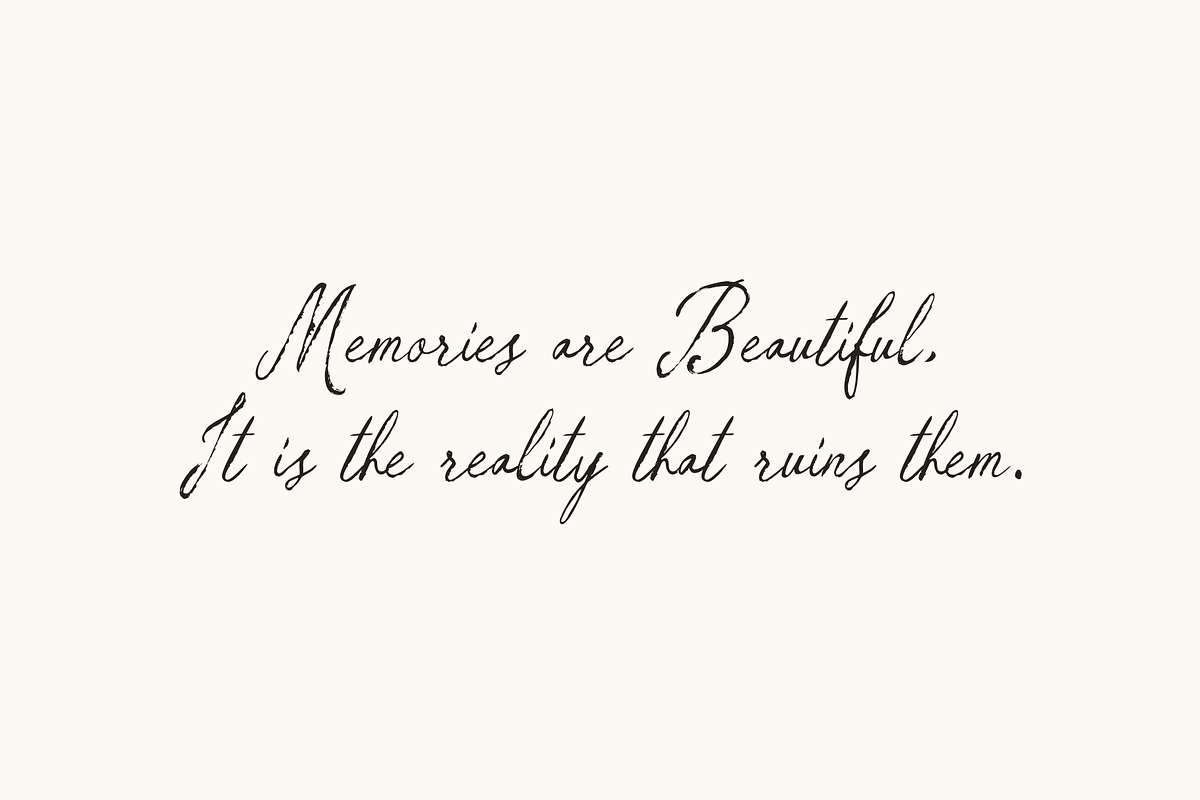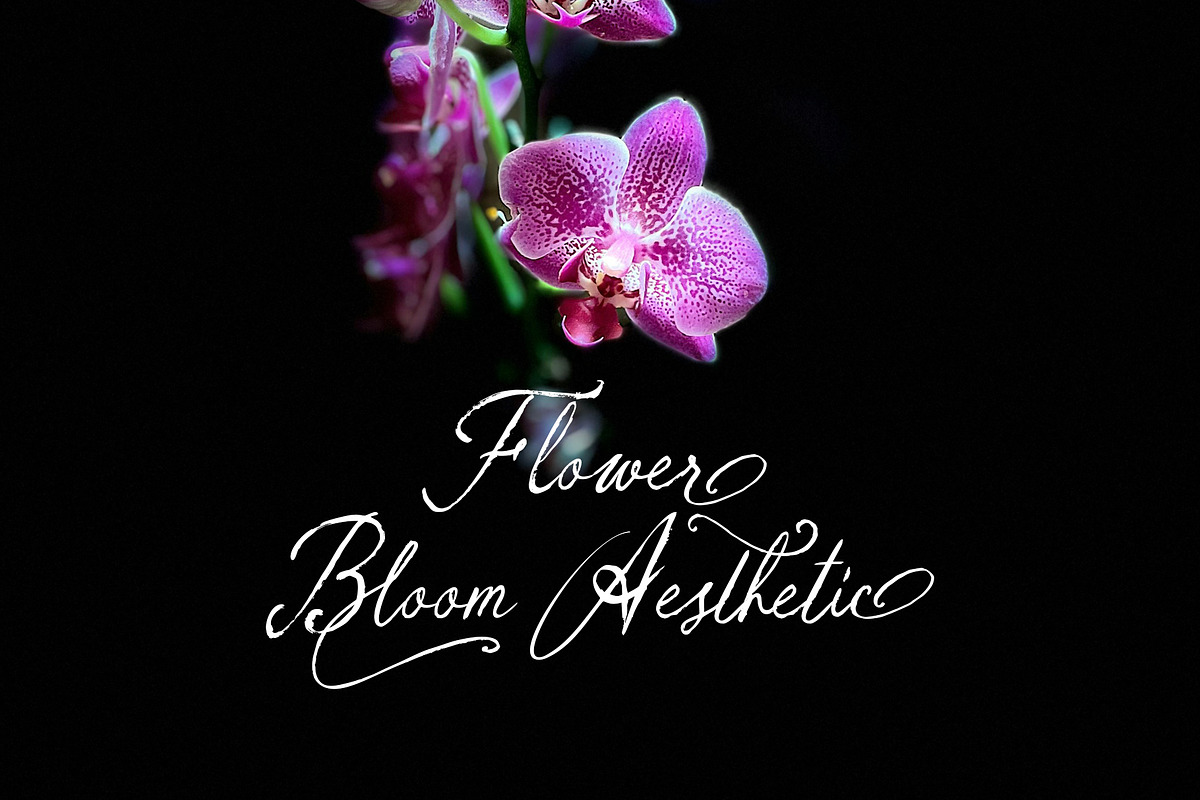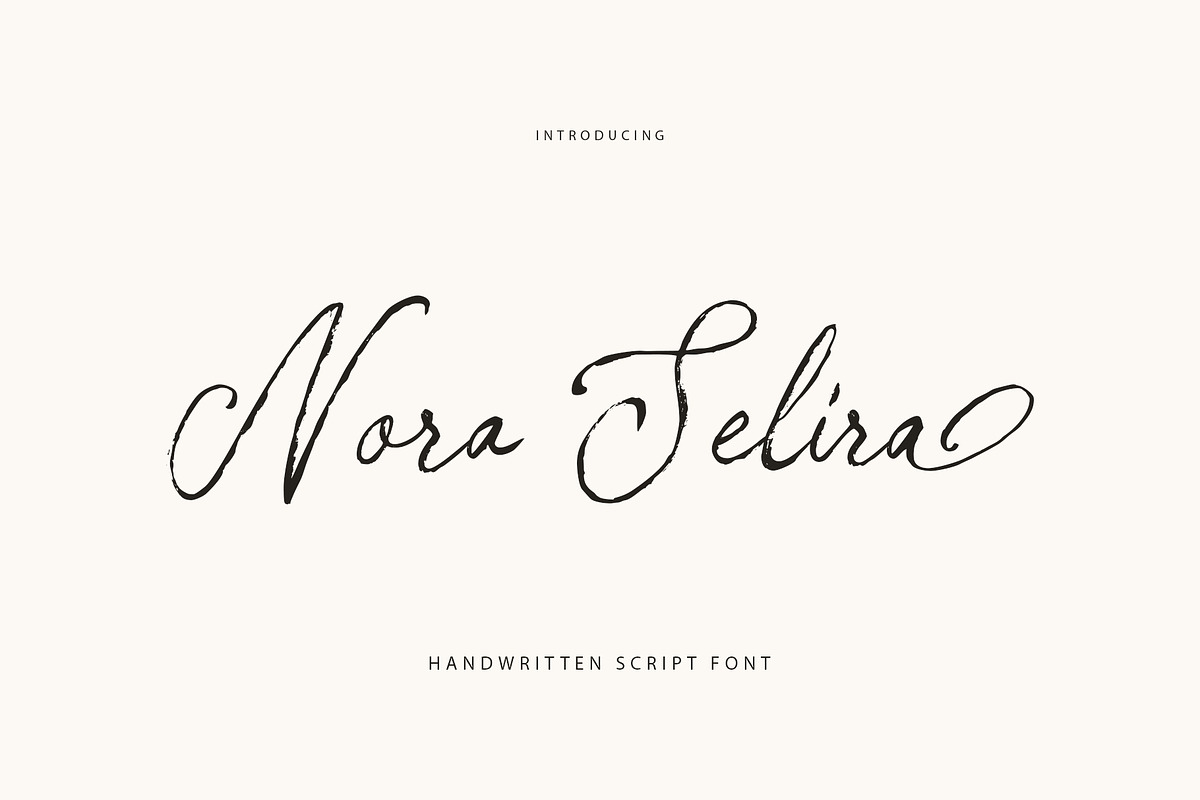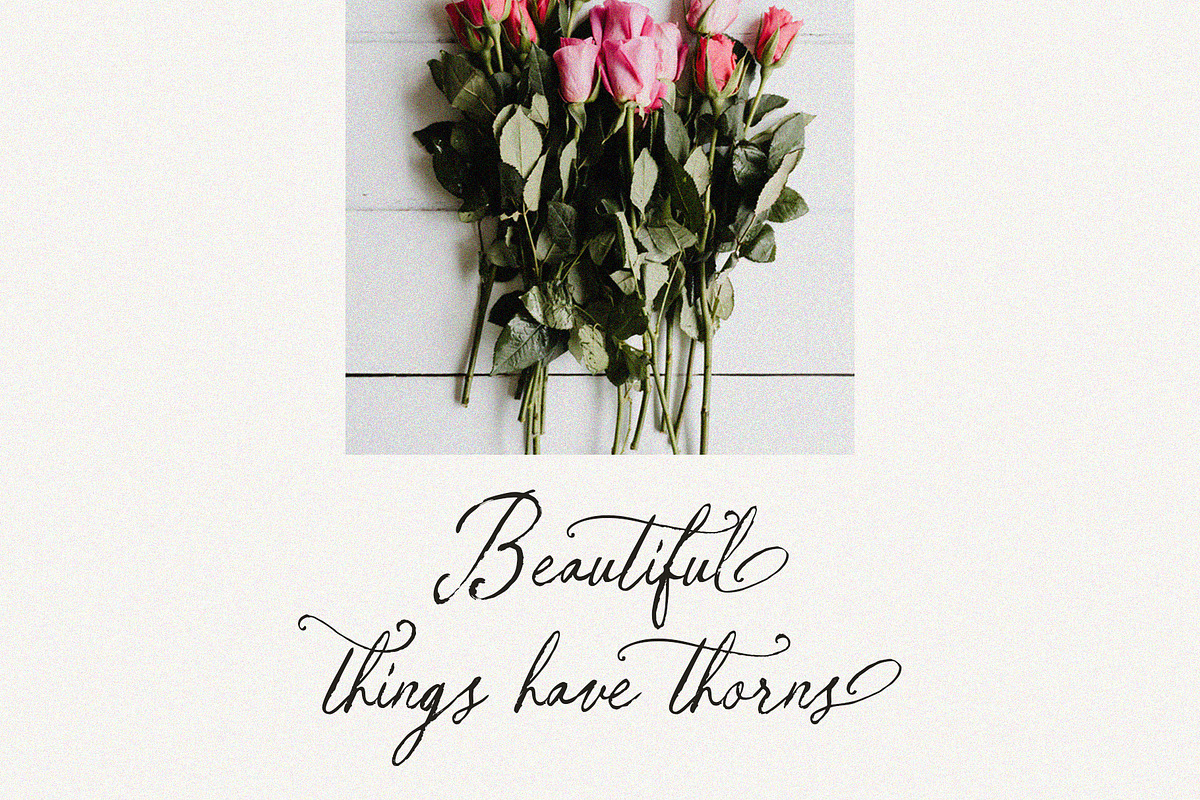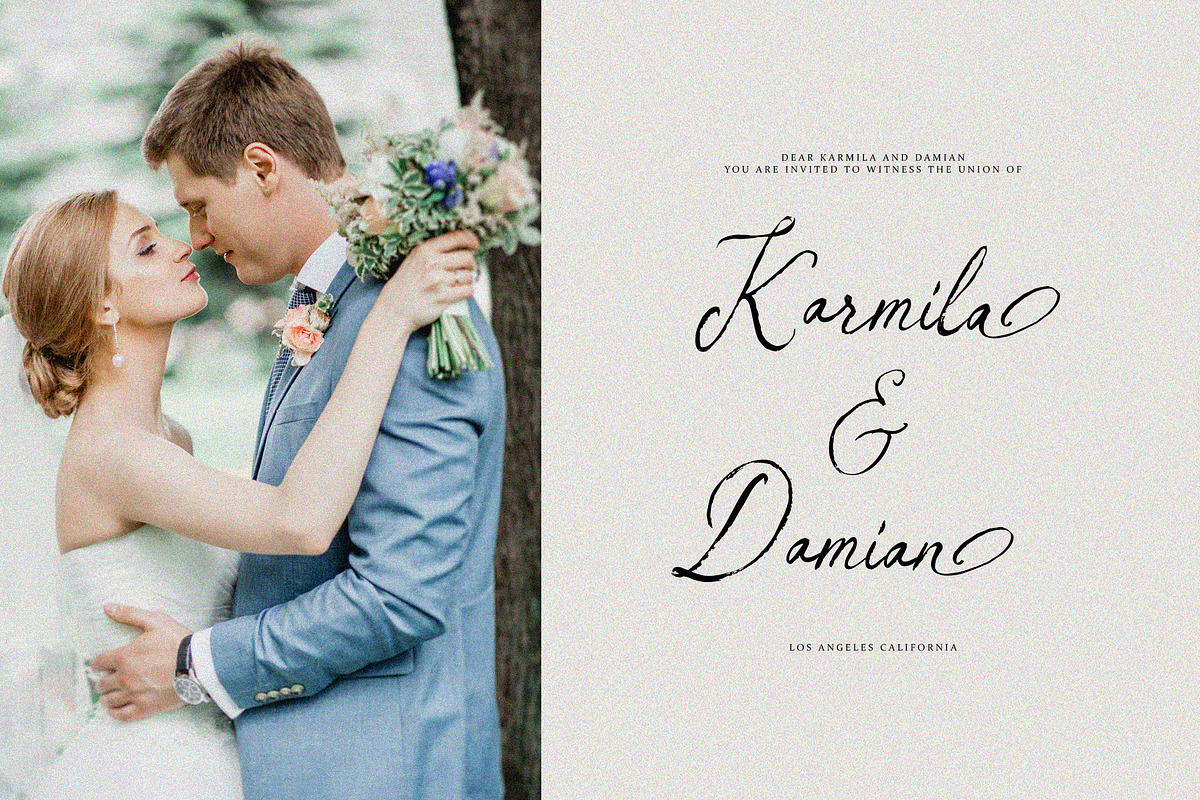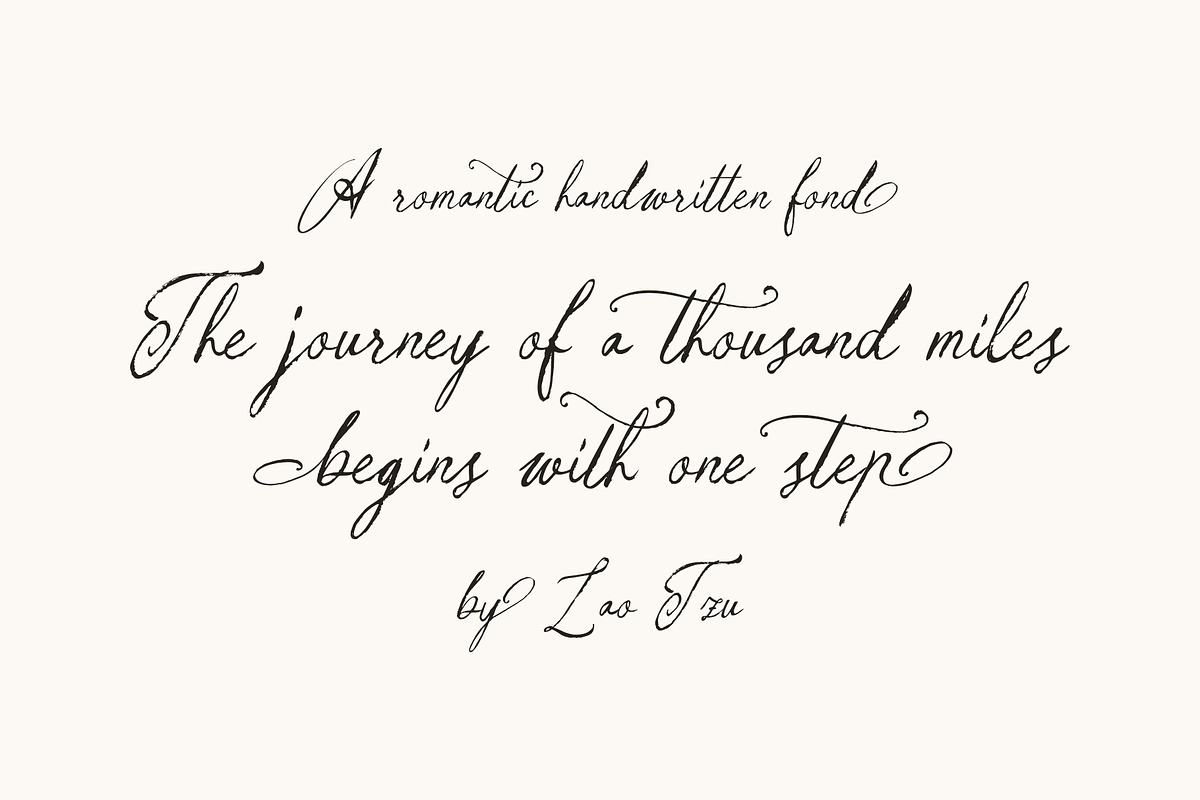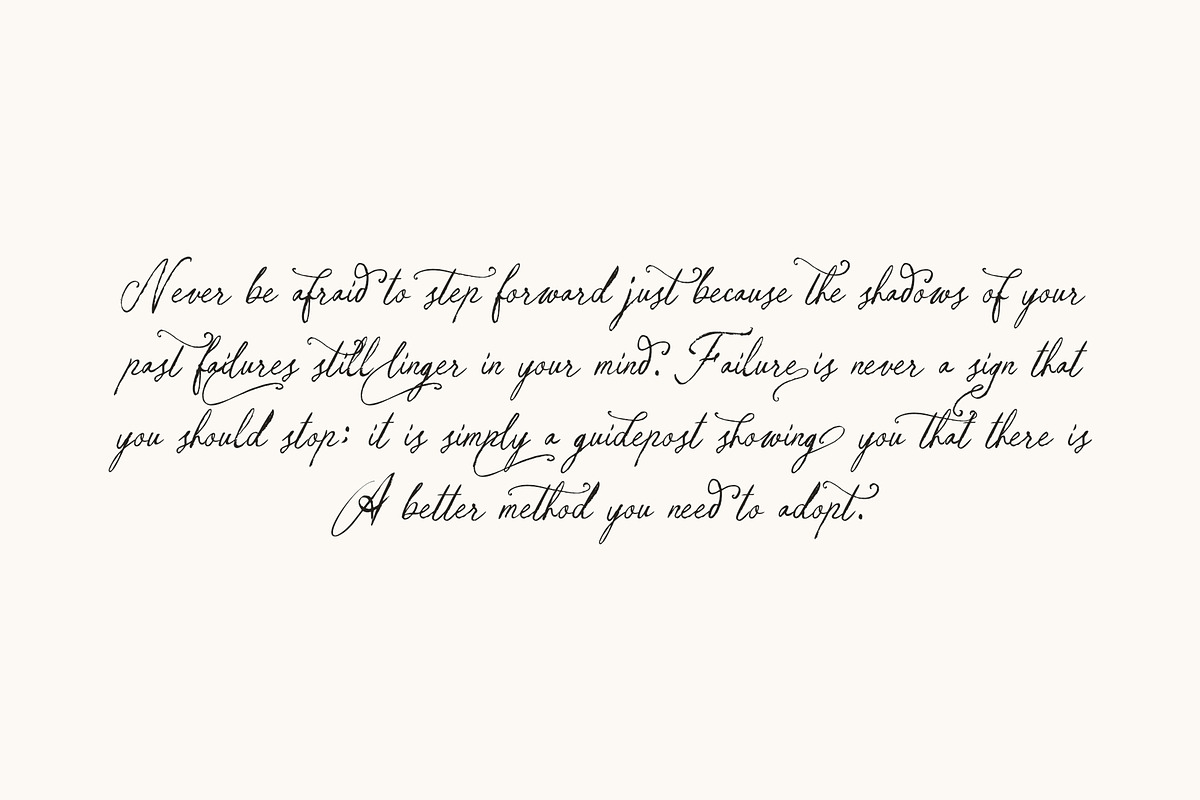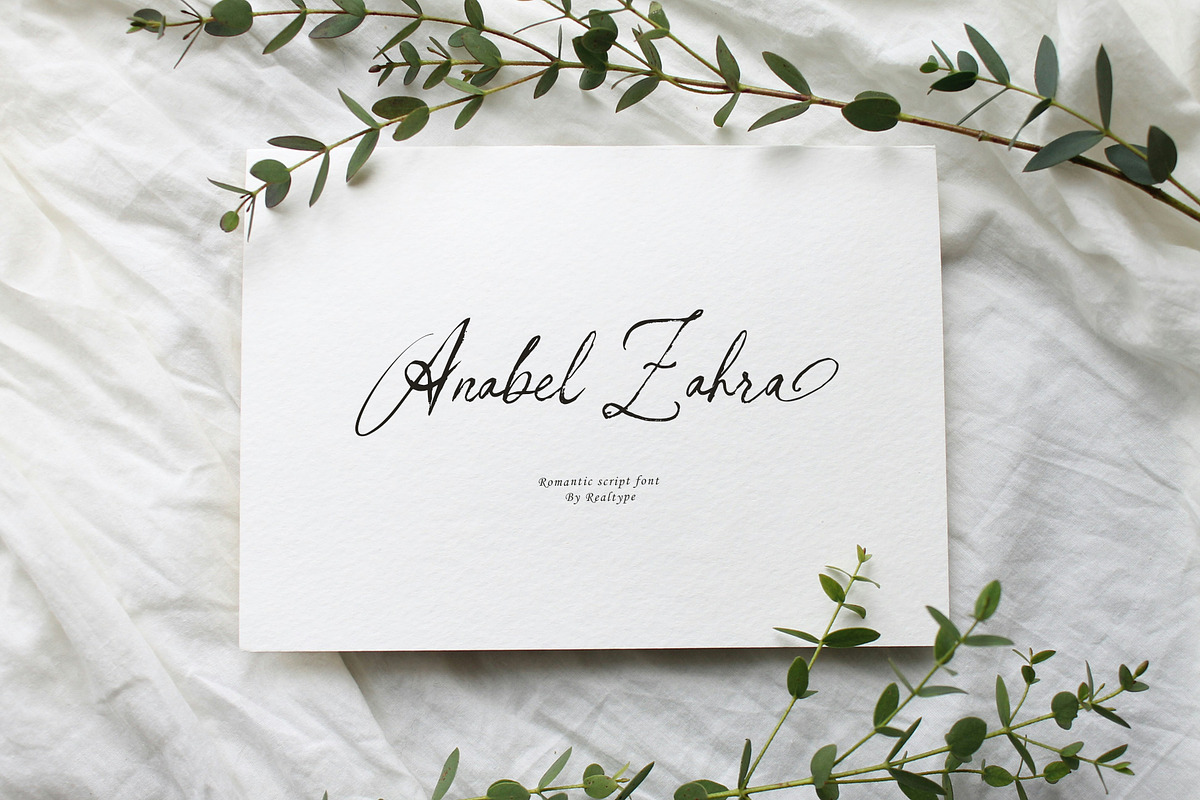
Nora Selira
Nora Selira consist of a sophisticated, elegant, classy and modern handwriting style. With a little dirty curvature and made from the typography of new trends, Nora Selira has a smooth wet ink look suitable for adding a modern and classy touch to your project.
Perfect for branding, weddings, social media, product design, stationery, etc. Nora Selira can add to all projects where hand touch is needed. Try mixing your design with this font.
Don't hesitate to pair with serif or serif in your work idea. Find interesting layouts to complement your project. This font has include multilingual support.